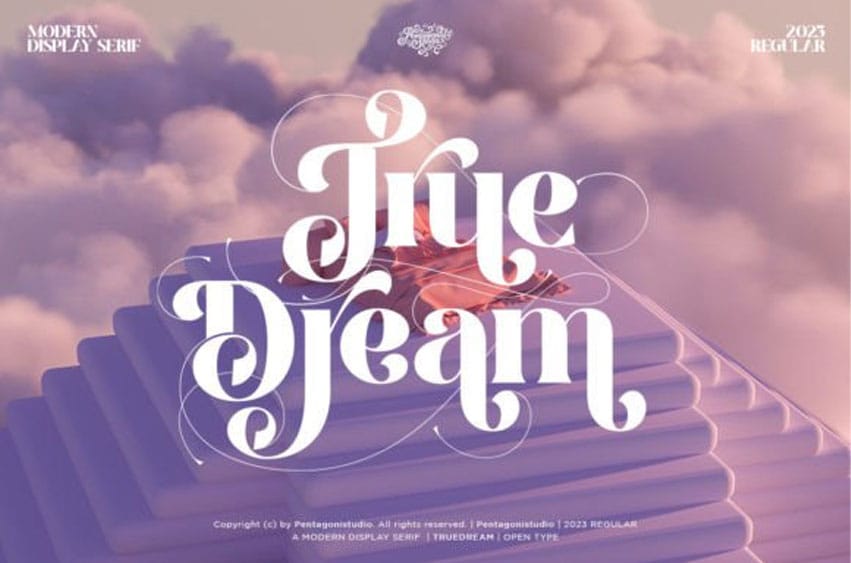
True Dream Font is a modern and stylish serif font perfect for banners, logos, magazines, book covers, tote bags, and many more. Add it now to your favorite creative projects, and notice how it makes them stand out!